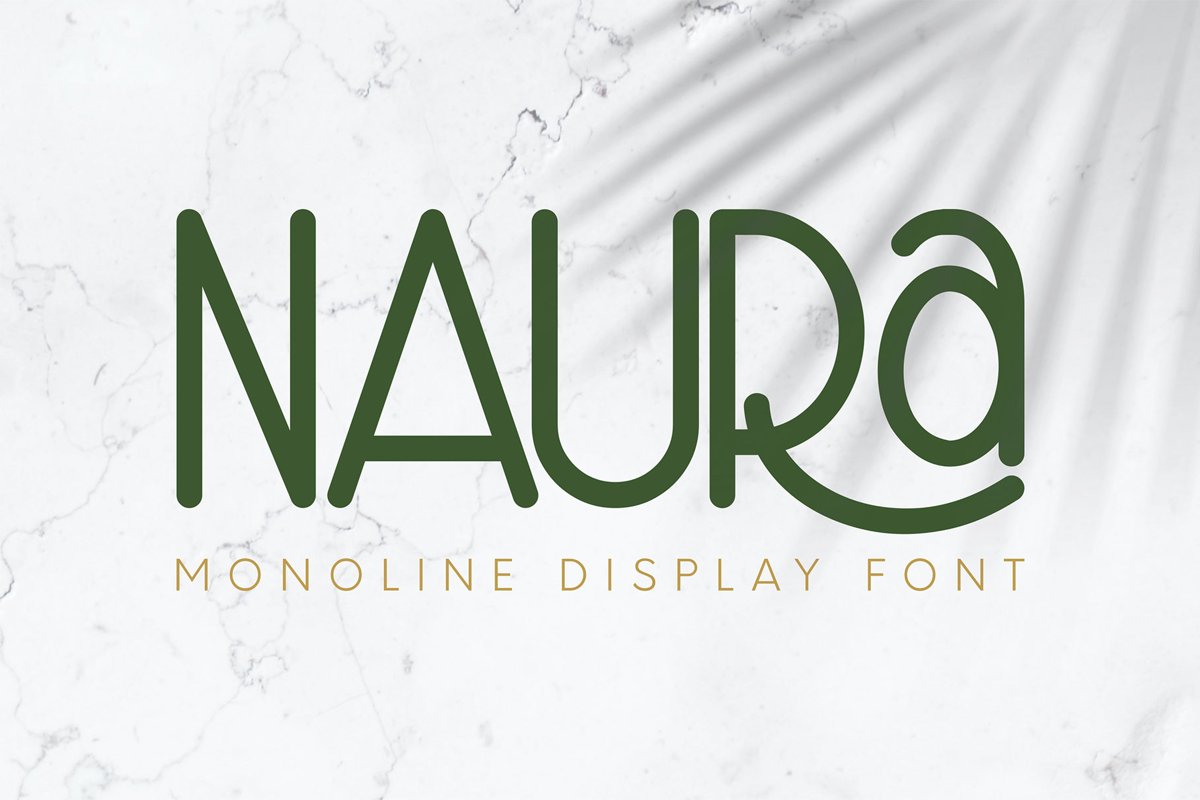
Naura
Naura Bold
Naura Regular Slant
Naura Semi Bold
Naura Semi Bold Slant
Naura Regular
Naura Bold Slant
Naura! A monoline display font with all uppercase glyphs, regular and slant. Naura font is suitable for branding, logotype, apparel, T-shirt, Hoodie, product packaging, quotes, flyer, poster, advertising, etc.
1. Uppercase characters
2. Multilingual support
3. Numerals, punctuations, alternates, and ligatures